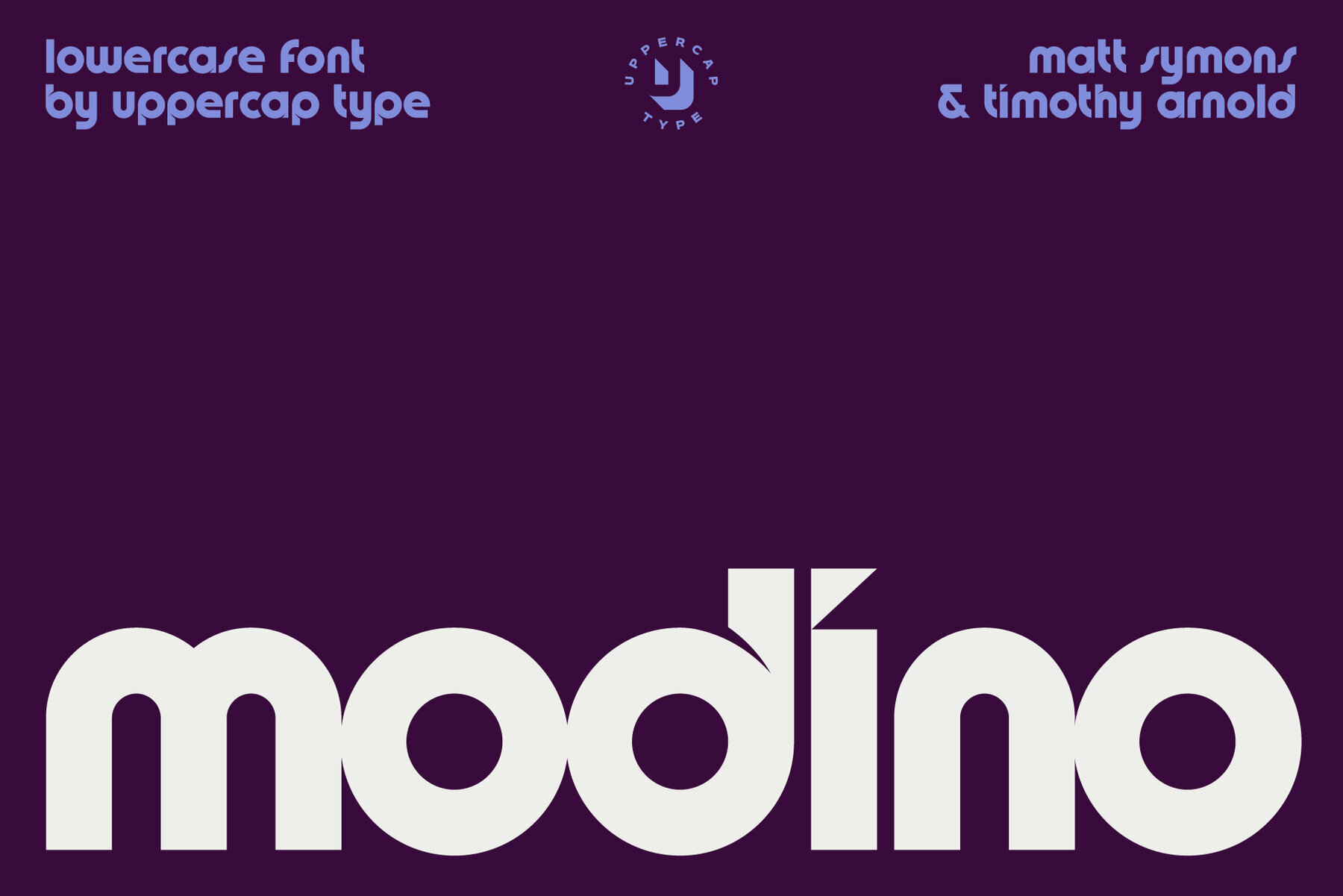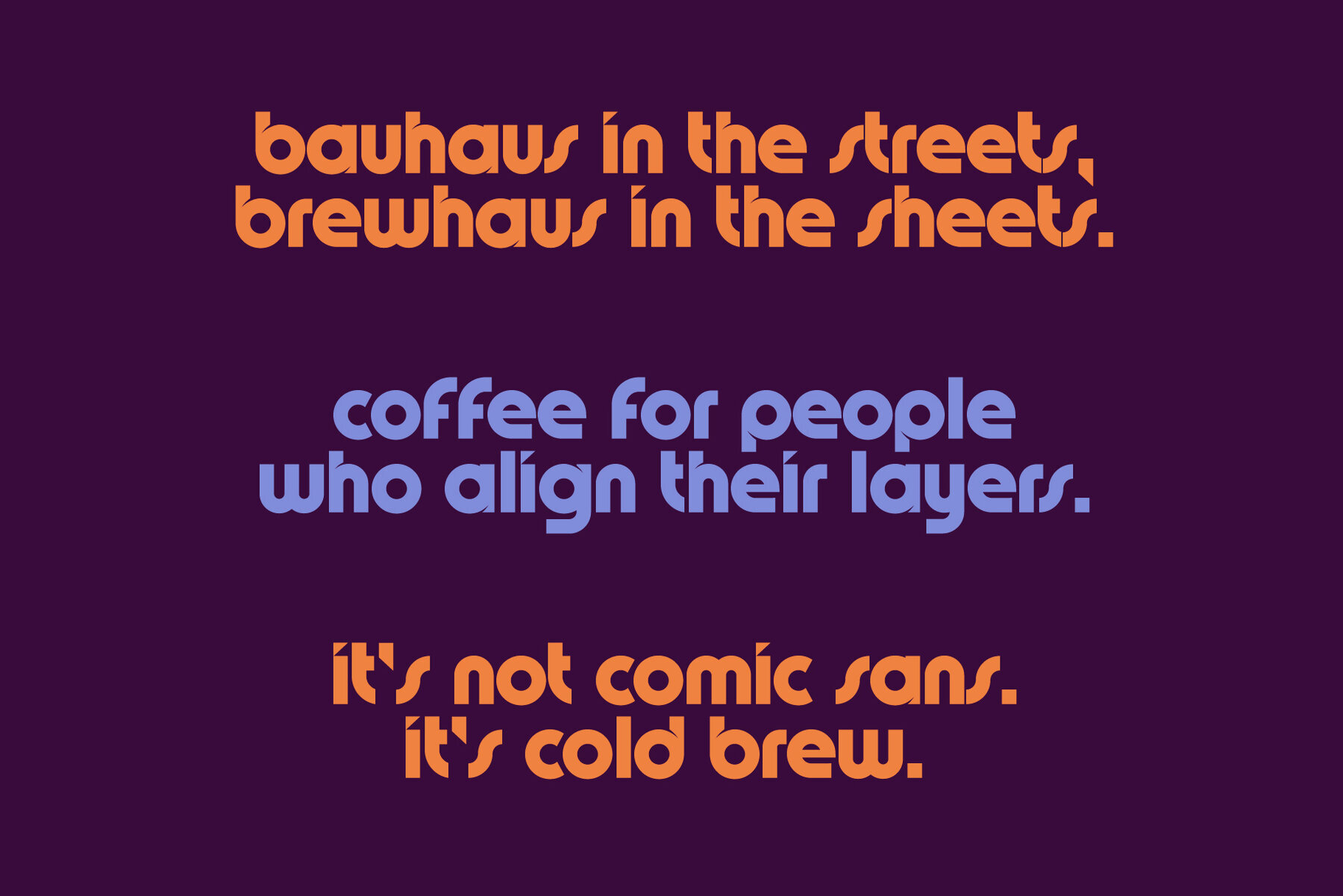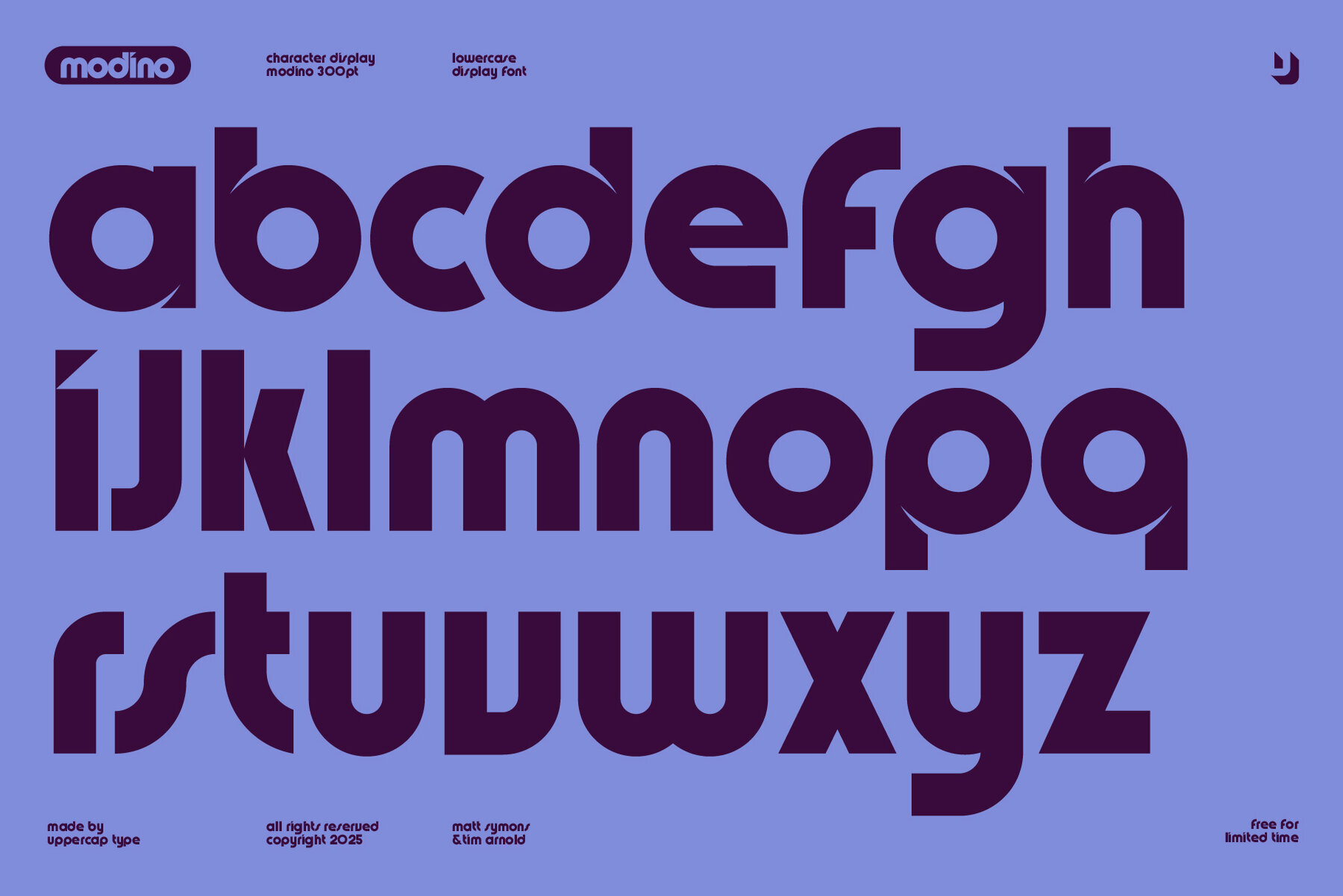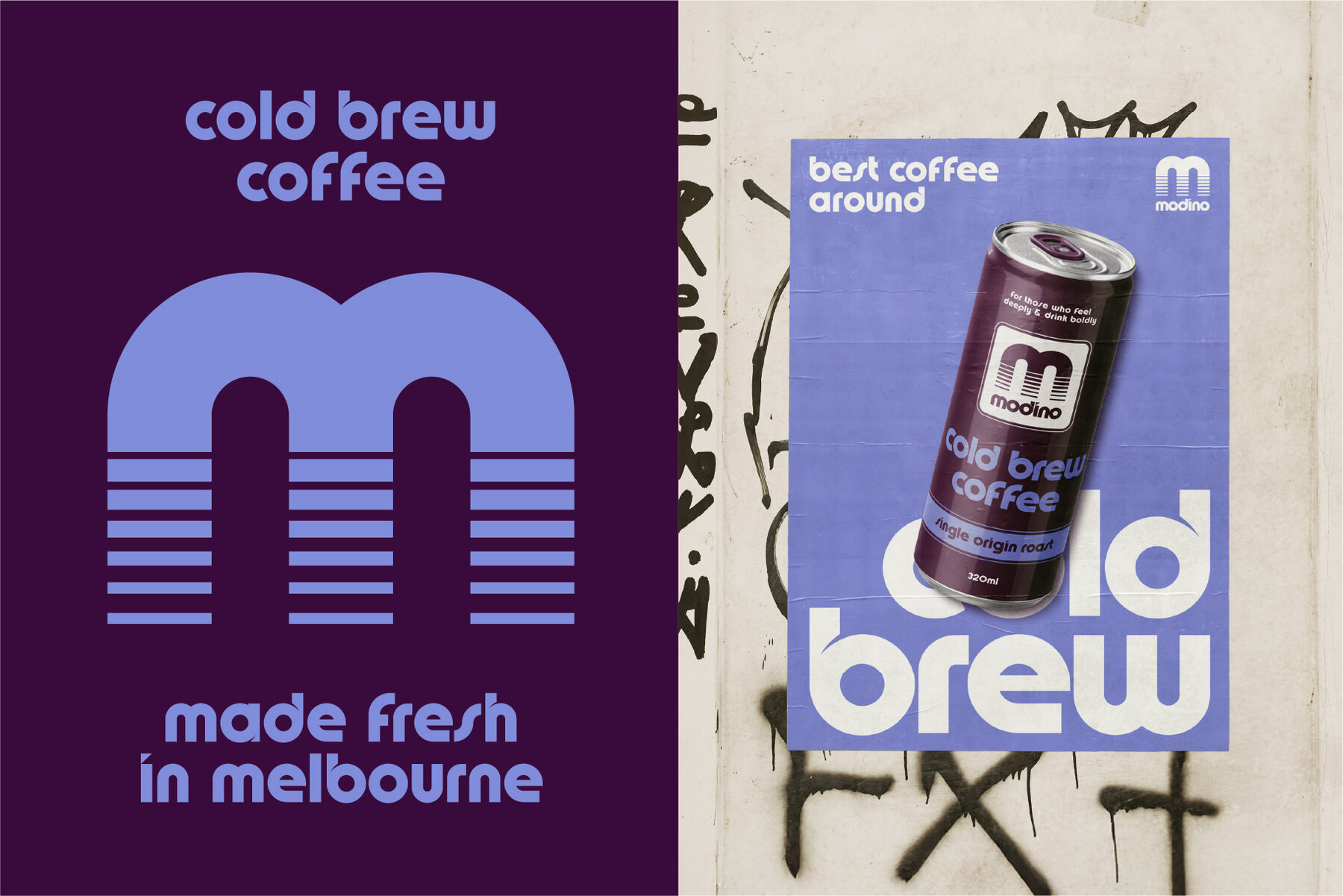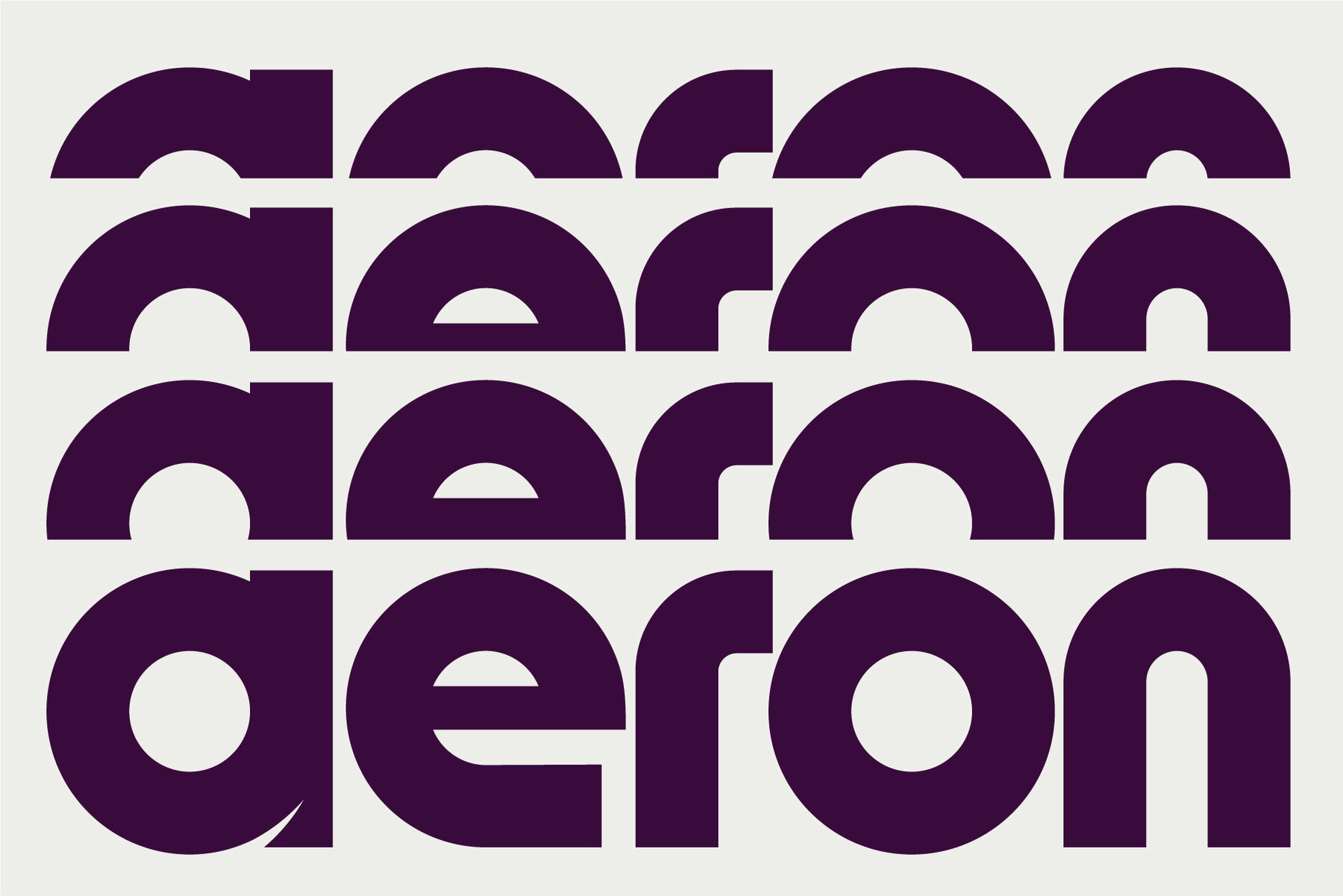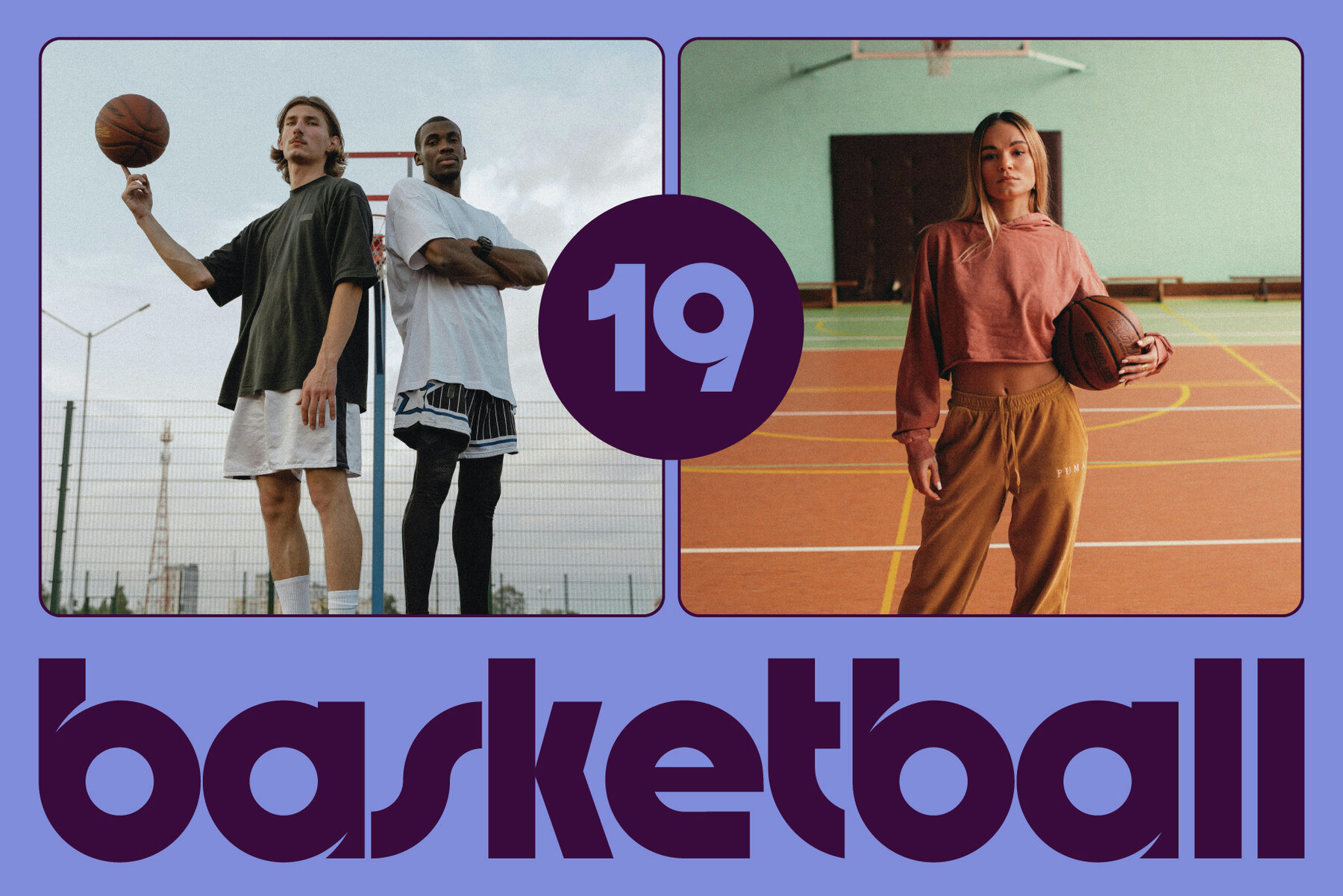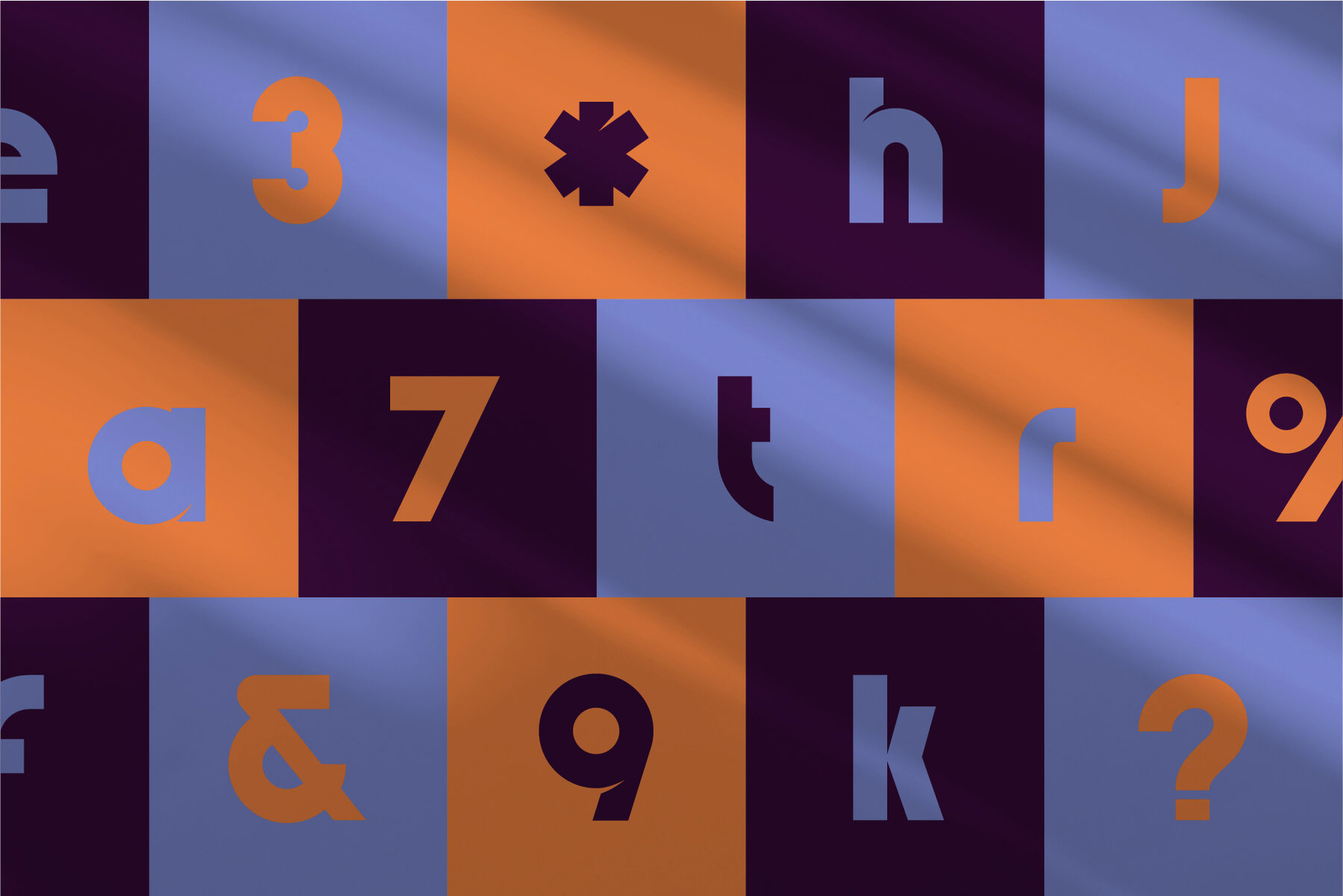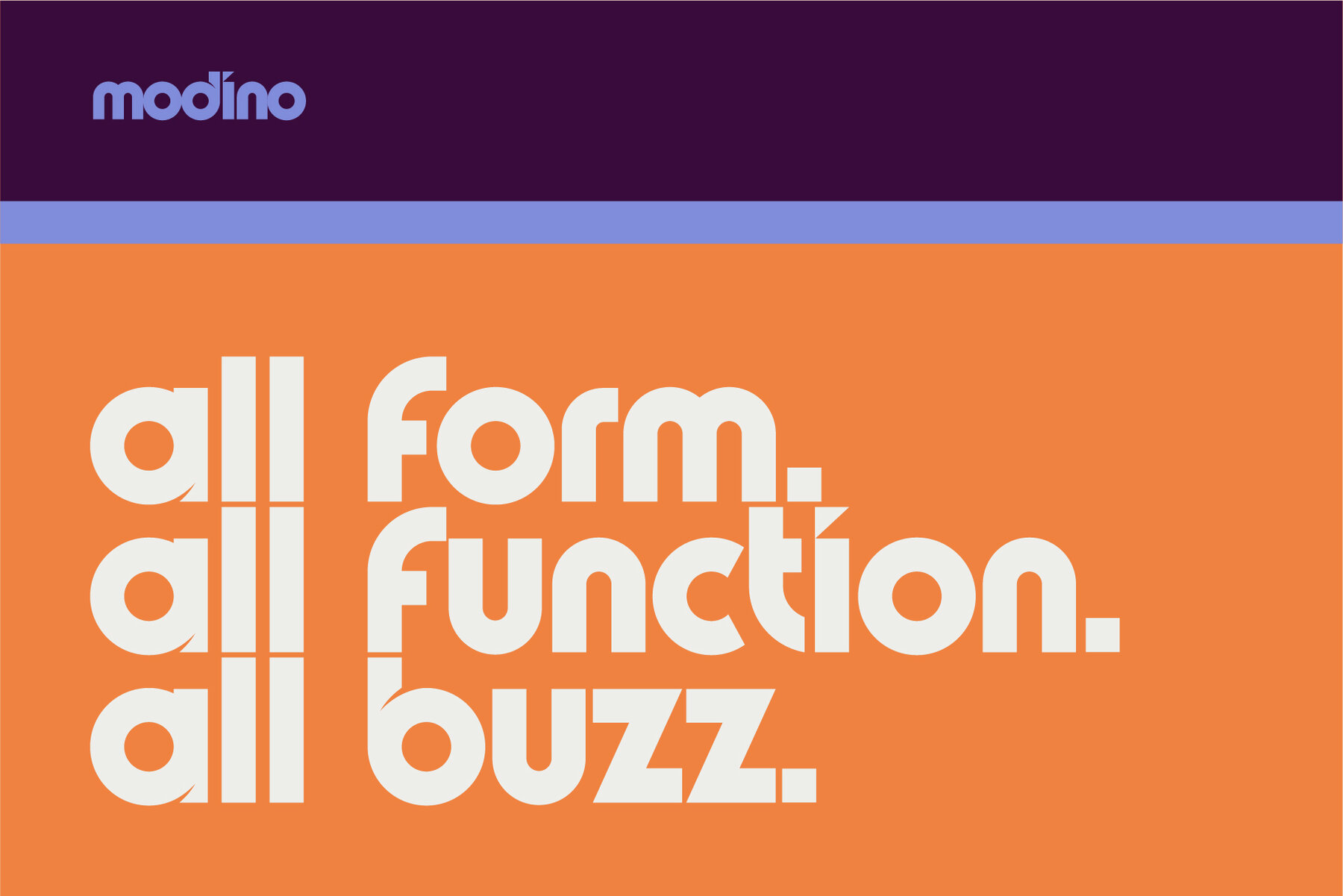
Modino Font
UT Modino Display
Modino is a contemporary display sans, rooted in the Bauhaus movement’s core belief that form follows function. Designed with clean, modular shapes and precise proportions, it brings together the timeless simplicity of modernism with the flexibility demanded by today’s digital and print design. Whether you're building a brand, crafting a web experience, or designing standout editorial layouts, Modino offers clarity, structure, and unmistakable style.